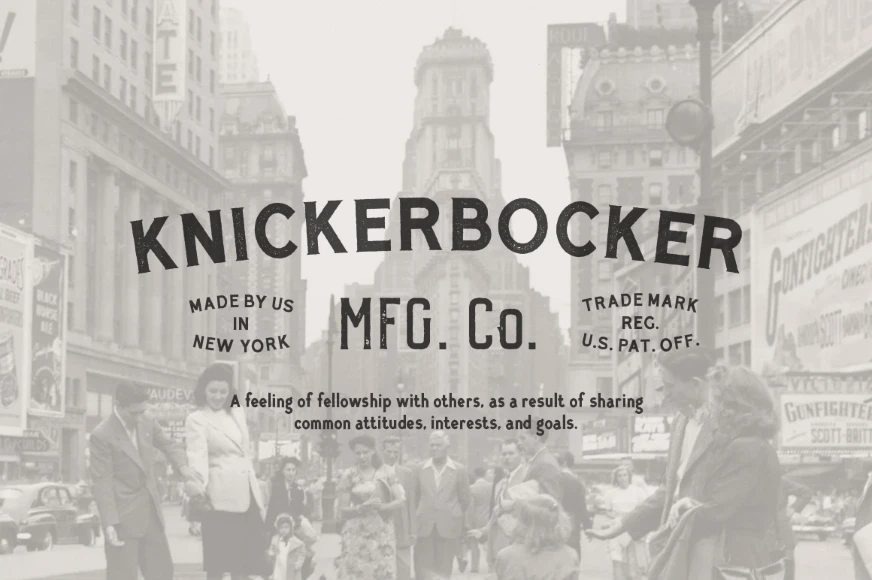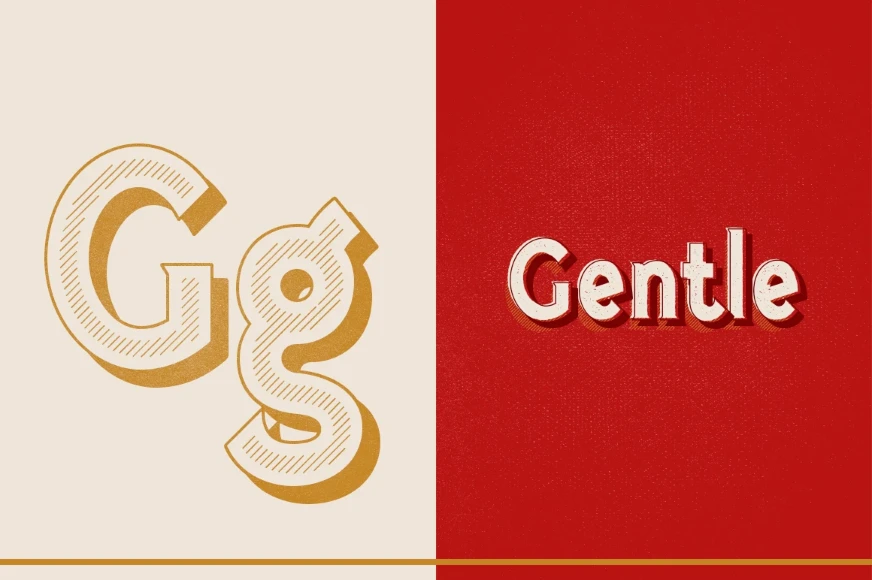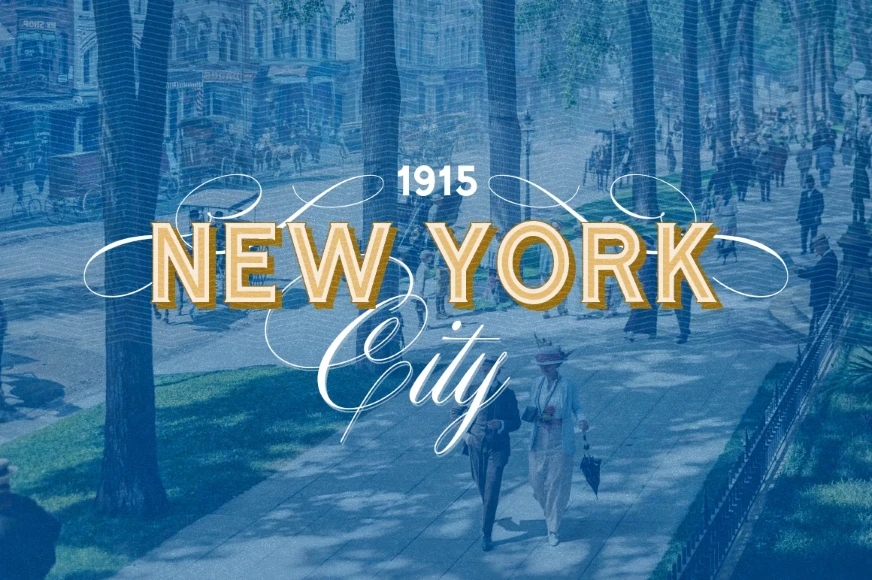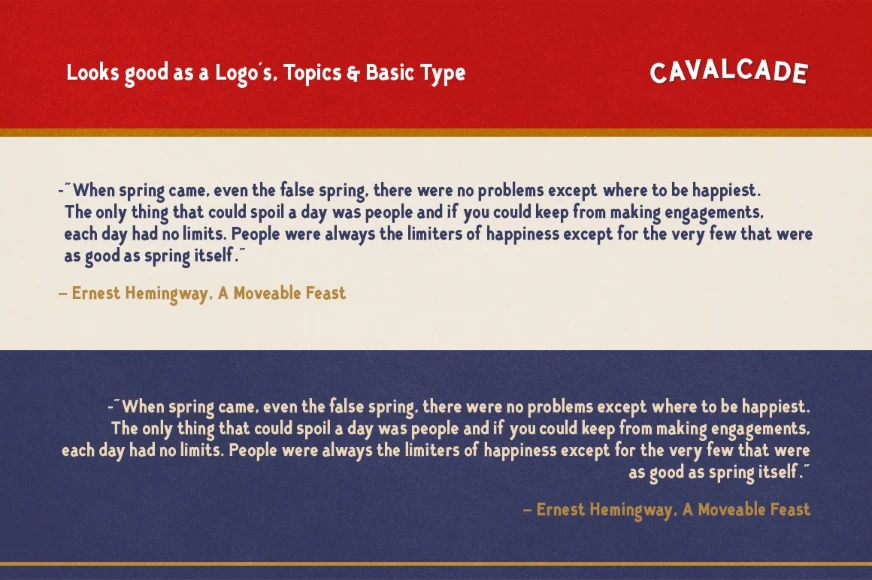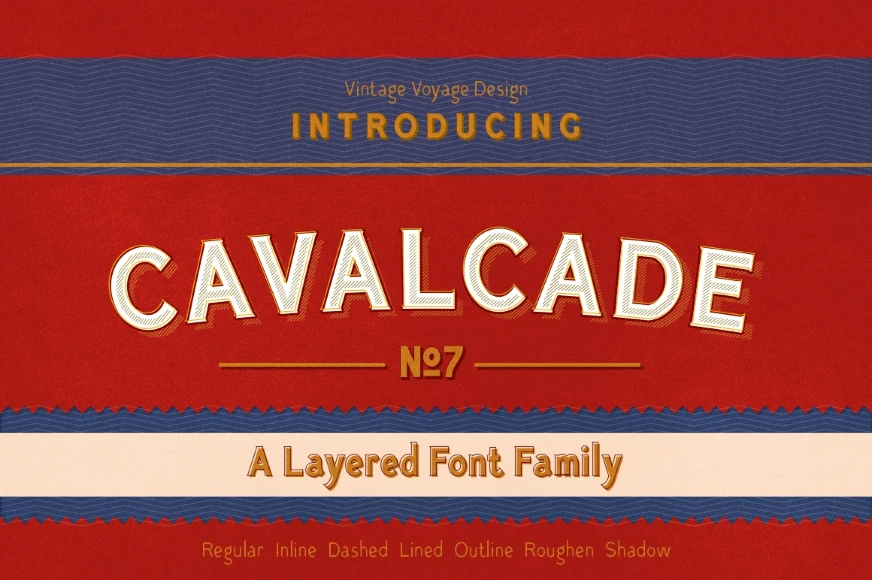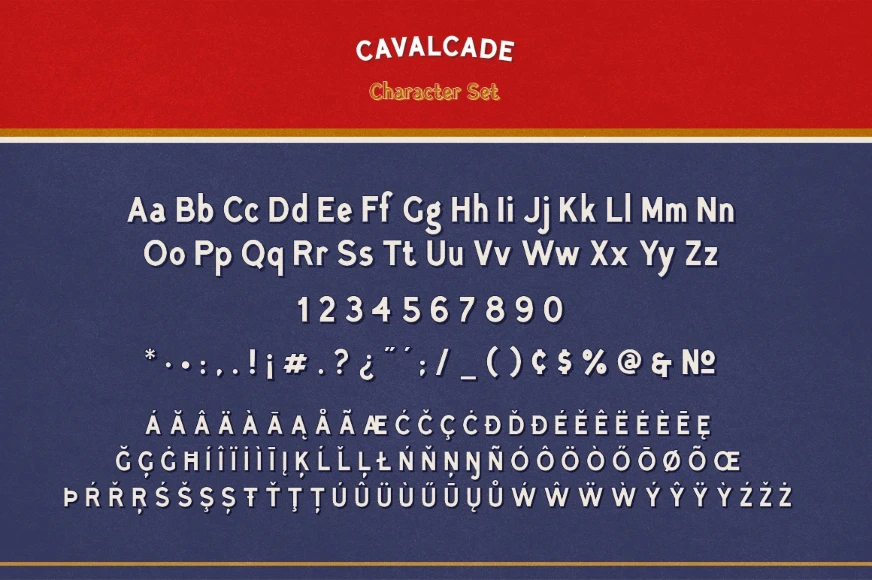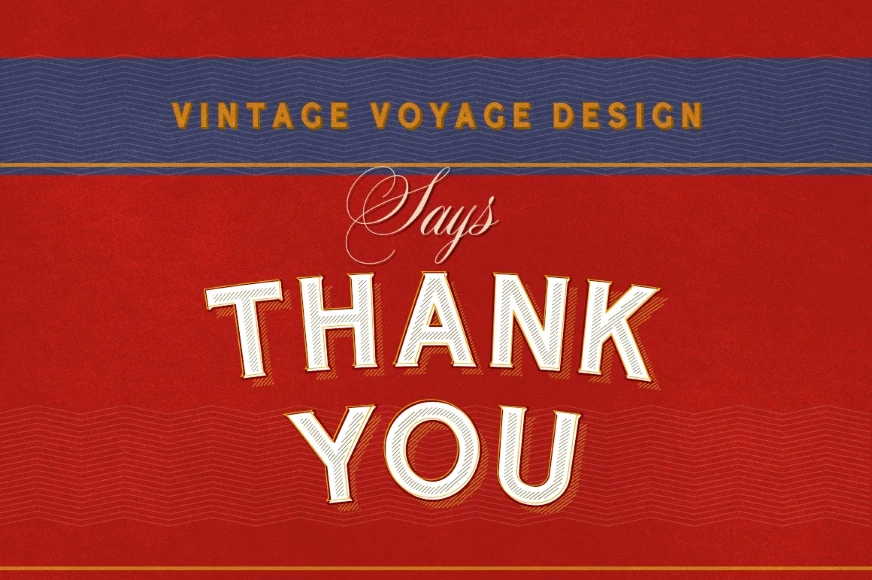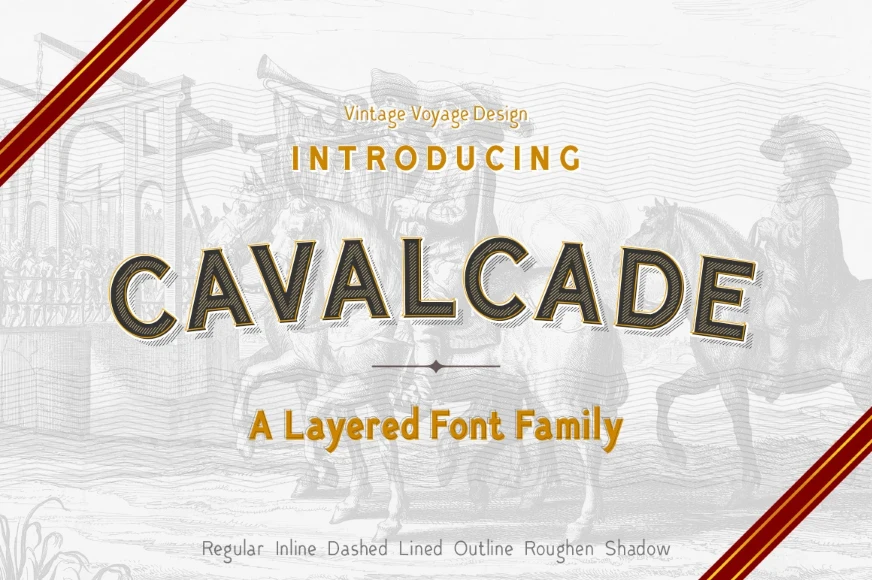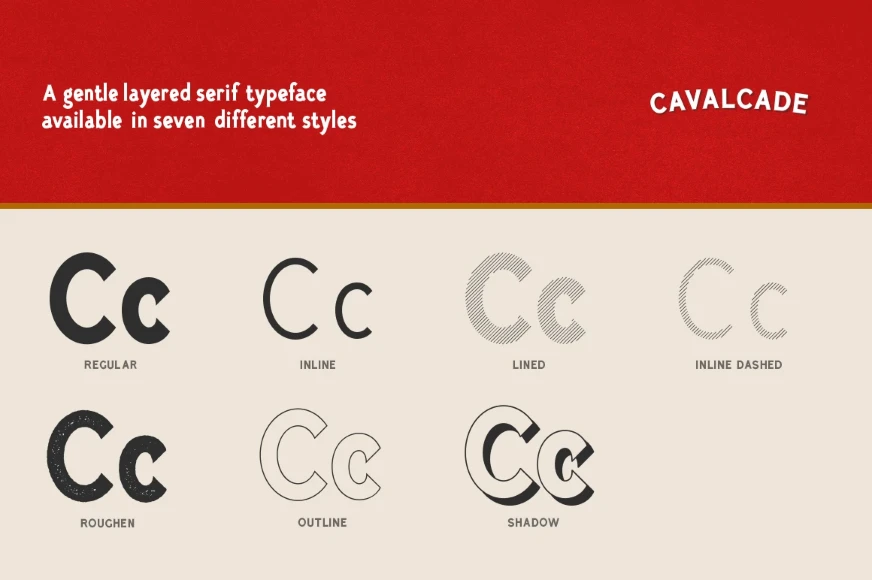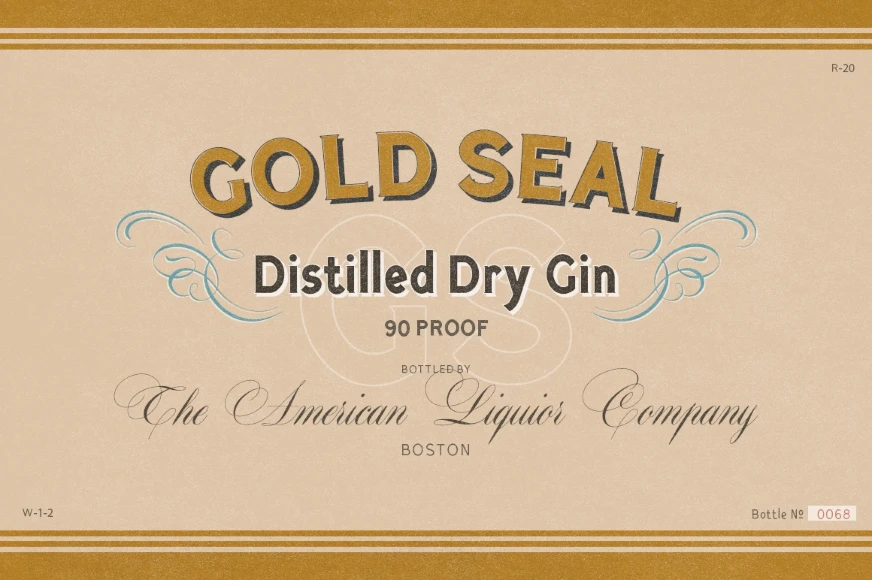
Cavalcade
Cavalcade Regular
Cavalcade Inline
Cavalcade Inline Dashed
Cavalcade Outline
Cavalcade Rough
Cavalcade Lined
Cavalcade Shadow
Cavalcade is a layered serif typeface inspired by early 20th-century American and European typography. Draws influence from vintage movie posters and classic alcohol labels like Martini, Cinzano, and Campari. Multiple layer combinations offer a wide range of eye-catching effects. Ideal for t-shirts, retro posters, prints, cards, mugs, and packaging design. Made for bold, nostalgic visuals with a refined vintage feel.